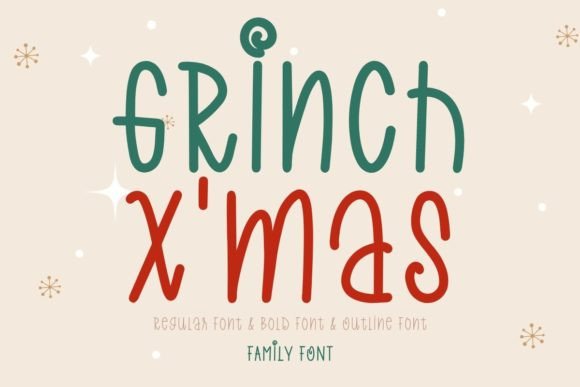
Unleash your creativity and let the Grinch X'mas Font, a delightful handwritten script, take your designs to new heights of whimsy and charm. This enchanting font is the perfect companion for all your festive and playful projects. Its elegant strokes and cheerful vibe add a touch of magic to any creation, making it ideal for a wide spectrum of designs and products.
Imagine crafting Christmas cards that resonate with warmth and cheer, using the Grinch X'mas Font. The font's whimsical style beautifully complements the festive spirit of the season, allowing you to create cards that truly capture the essence of Christmas joy. Whether you're designing for personal use or for business, this font will add a unique and memorable touch to all your Christmas-themed projects.
Step into a world of creative possibilities with the Grinch X'mas Font. This versatile font is perfect for designing eye-catching social media posts that will make your content stand out from the crowd. Its playful nature adds a touch of magic to your words, enchanting your audience and engaging them with your message. Whether you're creating posts for Christmas promotions, holiday greetings, or simply sharing your festive spirit, this font will elevate your social media presence.
The Grinch X'mas Font is also a magnificent choice for designing mugs, t-shirts, and other merchandise that exudes Christmas cheer. Its charming strokes and festive style will make your products irresistible, capturing the hearts of customers who appreciate unique and playful designs. Imagine creating t-shirts with whimsical Christmas messages, or mugs adorned with festive illustrations, all brought to life with the magic of the Grinch X'mas Font. Your products will be the talk of the town, spreading joy and merriments wherever they go.
The versatility of the Grinch X'mas Font extends beyond Christmas-themed projects. Its cheerful and playful style lends itself beautifully to a variety of other design endeavors. Create eye-catching banners for special events, invitations for birthday parties, or stationery that radiates warmth and personality. The possibilities are endless with this charming font, allowing you to infuse a touch of whimsy into all your design projects.
The Grinch X'mas Font is the perfect choice for designers, crafters, and creative enthusiasts who seek a font that embodies the joy and wonder of Christmas. With its enchanting style and versatility, this font will add a touch of magic to all your designs, making them truly unforgettable. Embrace the spirit of Christmas and let your creativity soar with the Grinch X'mas Font.